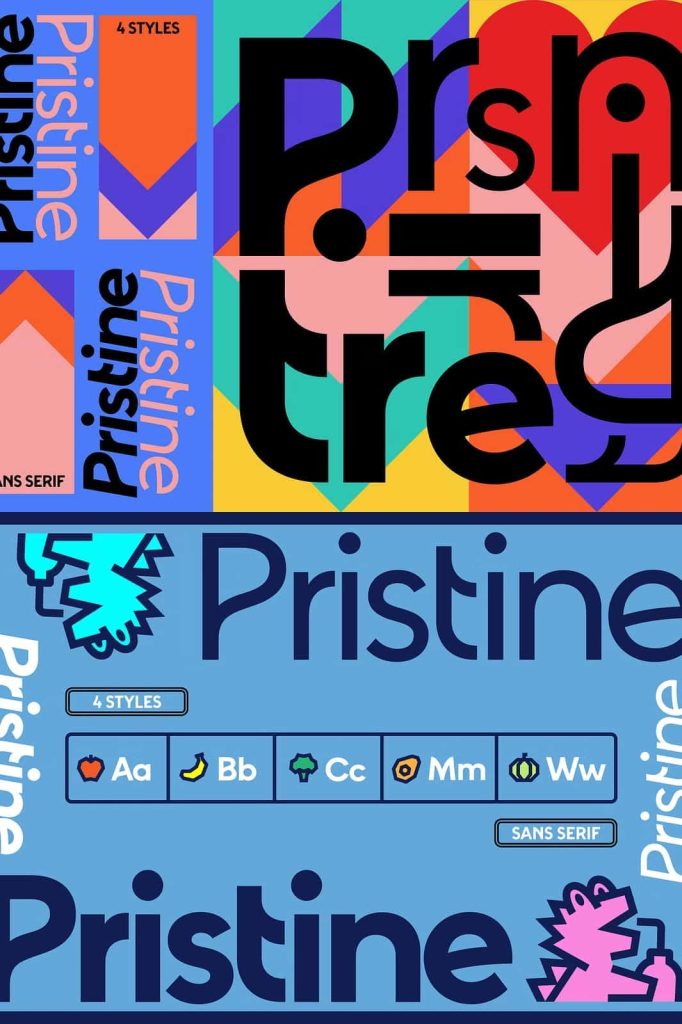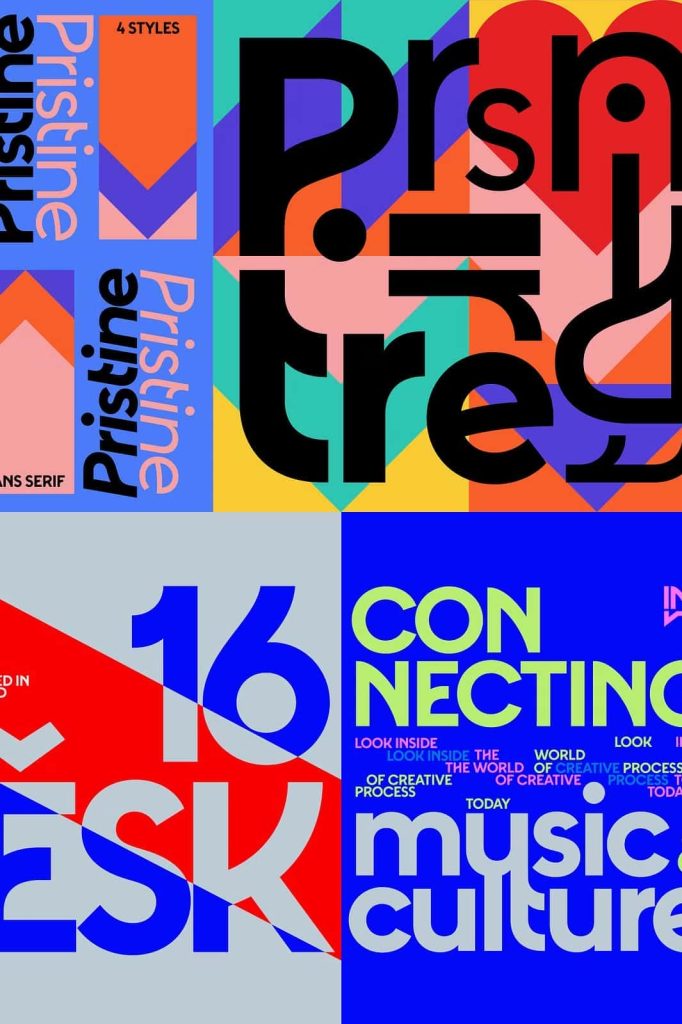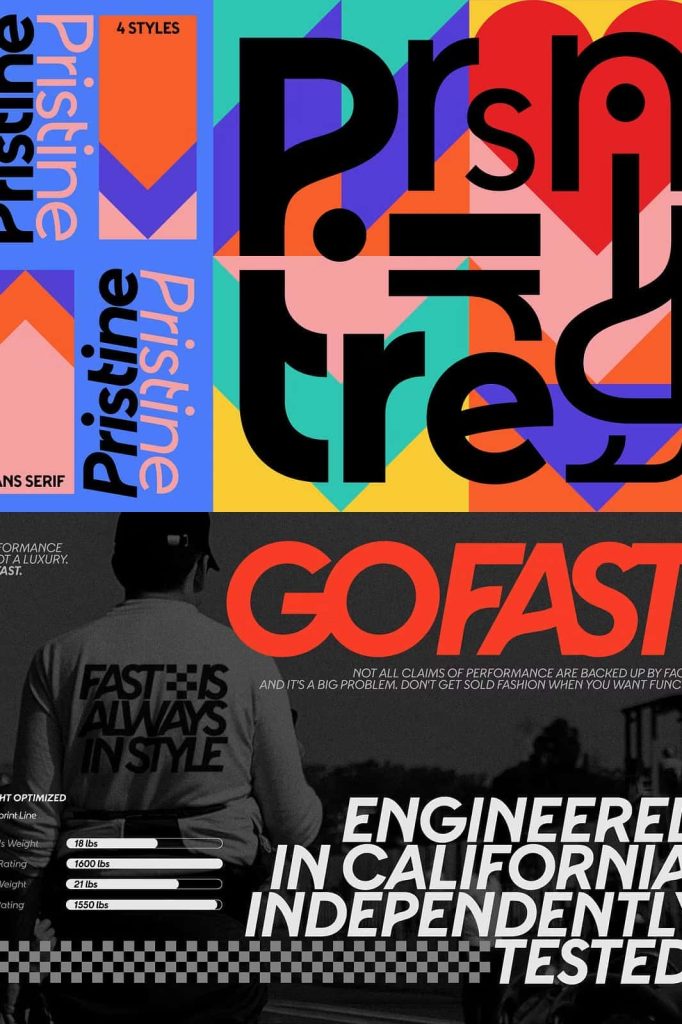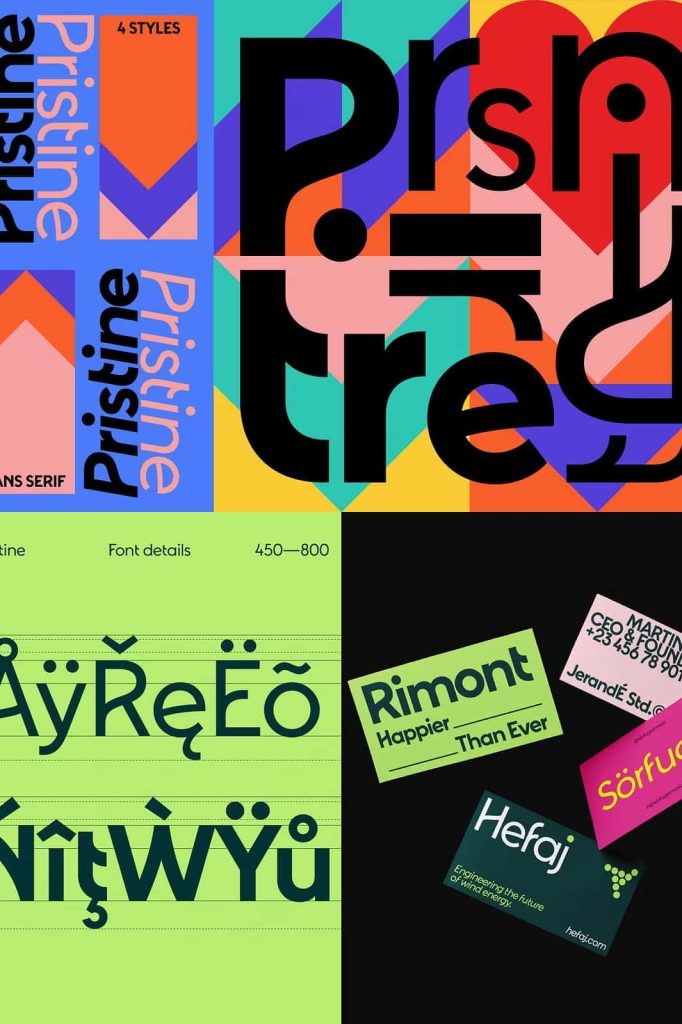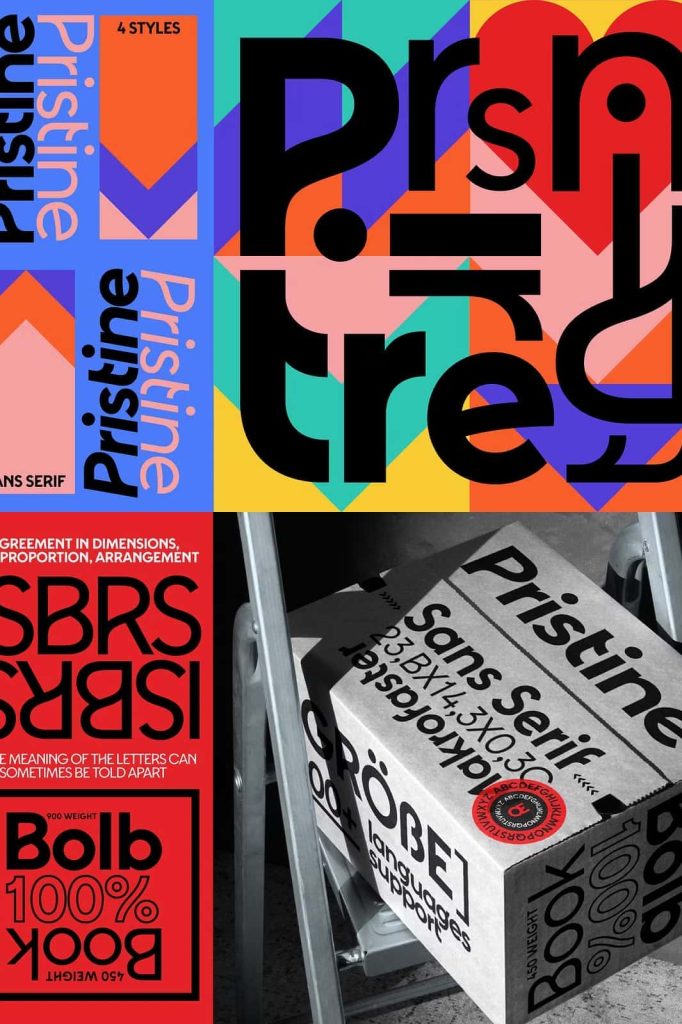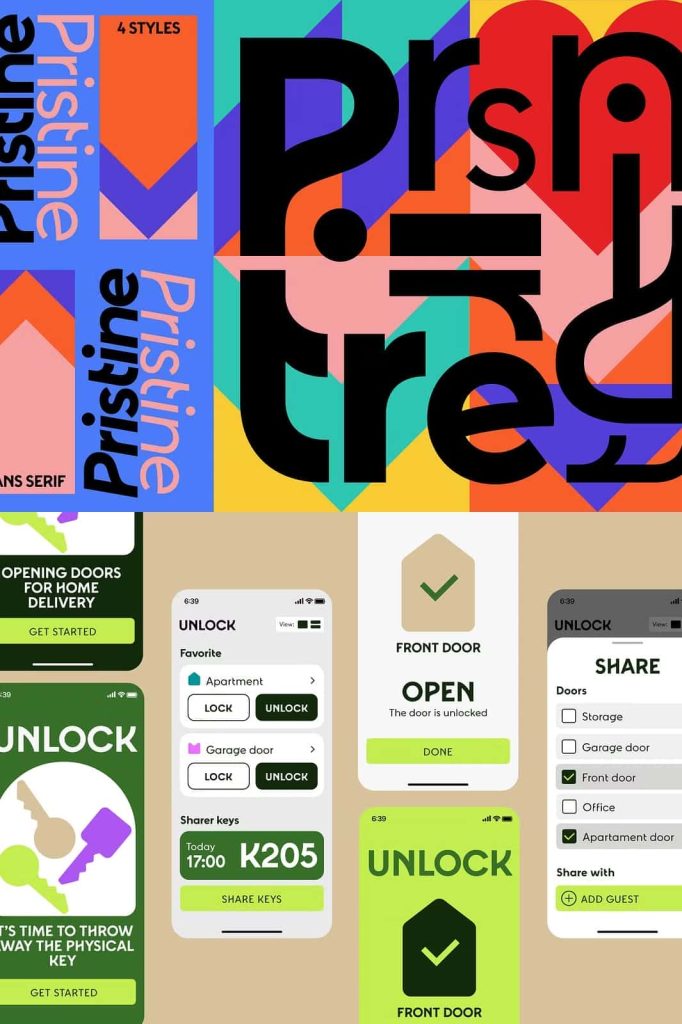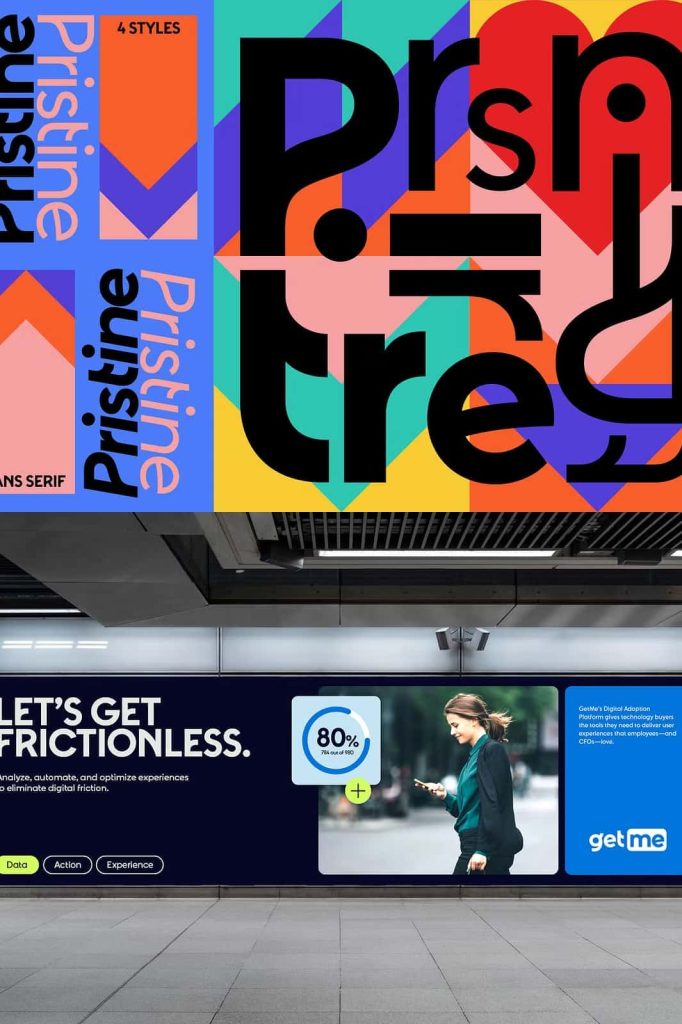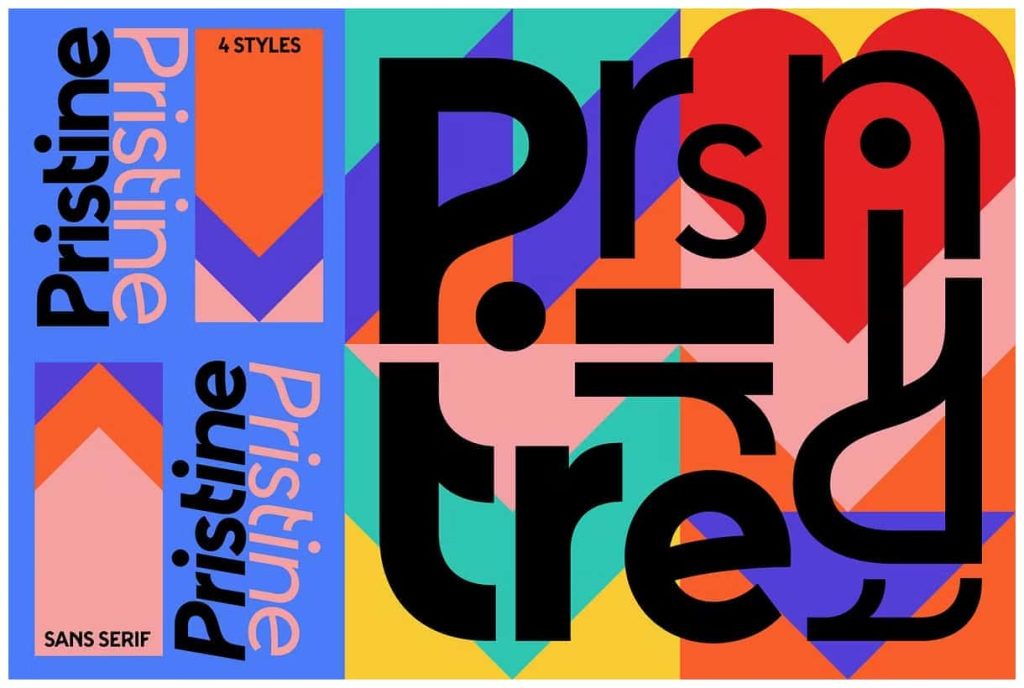
Pristine – Elegant Sans SerifleastedJune 9, 2025Fonts Pristine is an elegant sans serif typeface that embodies elegance, cleanliness, and minimalism. Download